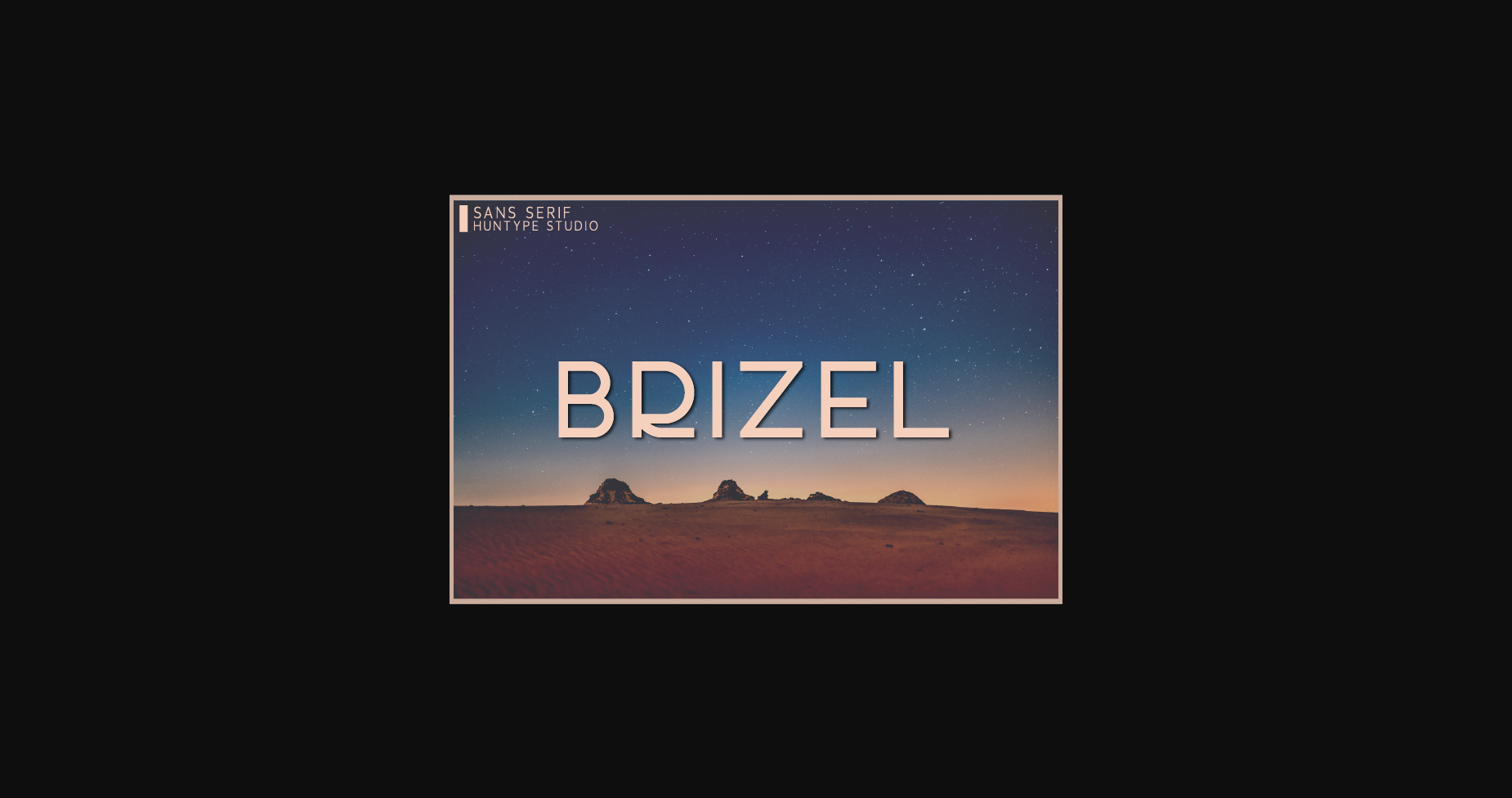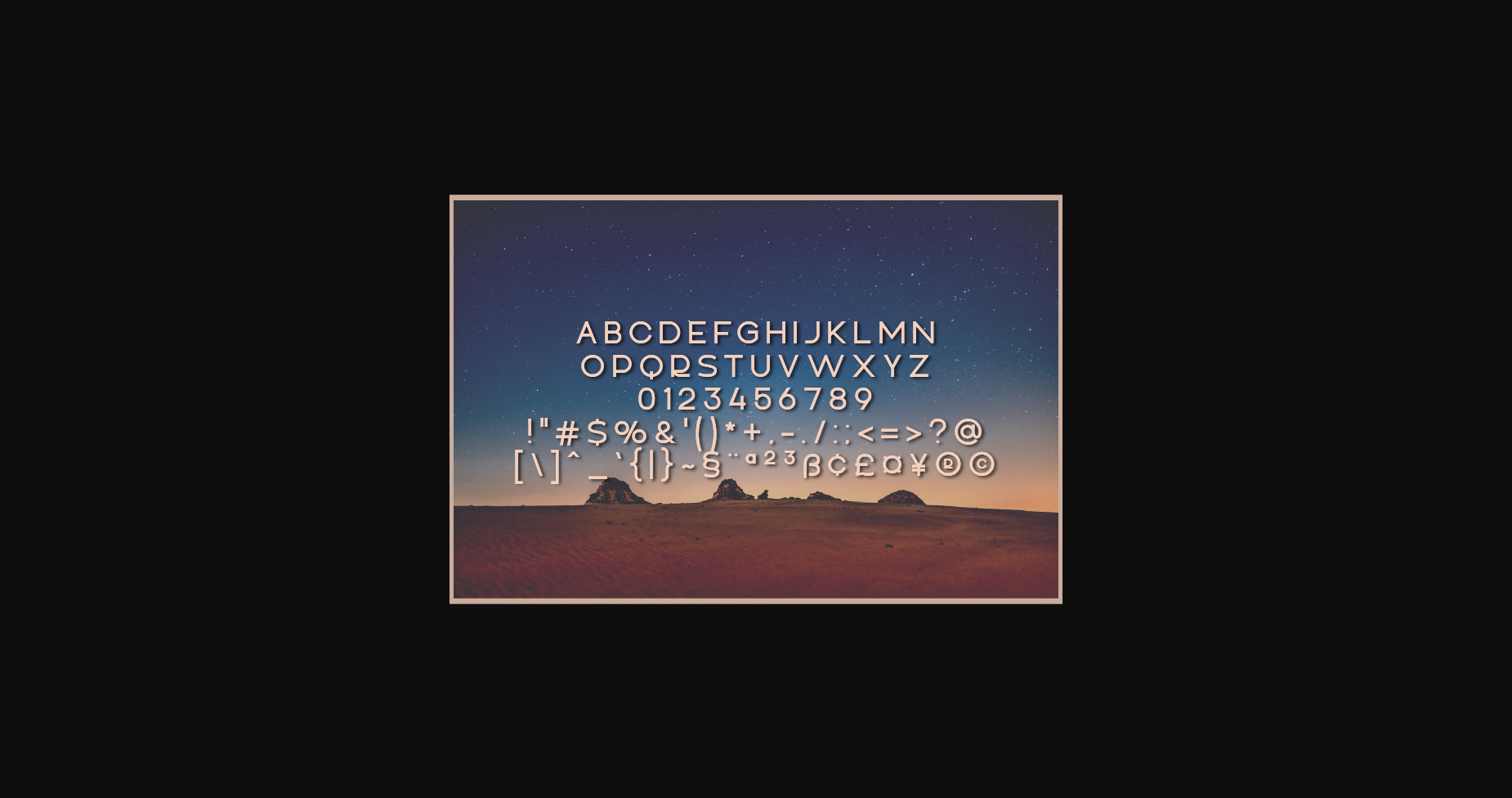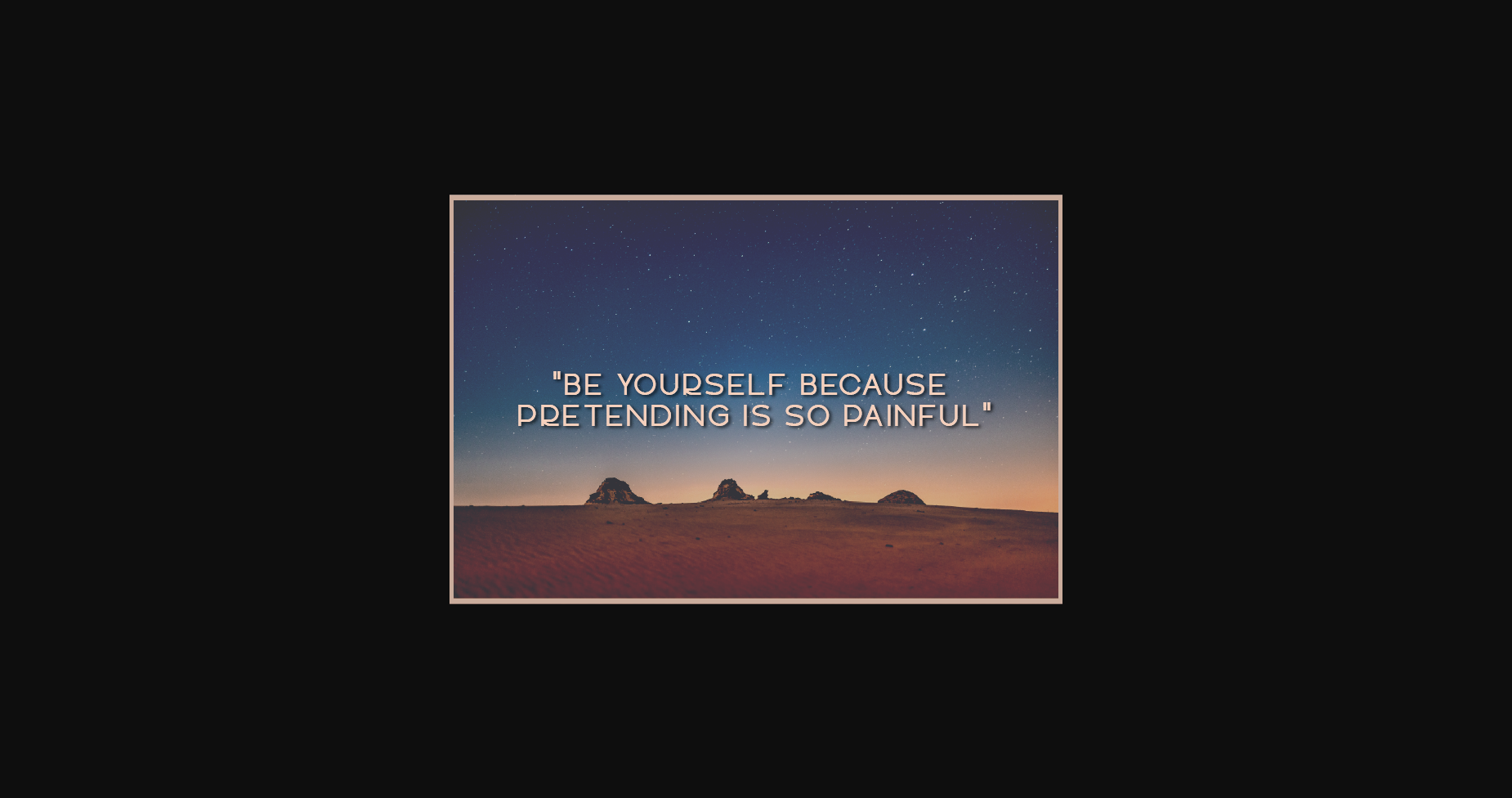
HomeSans Serif FontsBrizel Font Sans Serif Fonts Brizel Font FacebookXPinterestWhatsApp 1 of 5 ... Brizel Font Poster 2... Brizel Font Poster 3... Brizel Font Poster 4... Brizel Font Poster 5... About Brizel Font Brizel is a clean and simple lettered sans serif font. No matter the topic, this font will be an incredible asset to your fonts’ library, as it has the potential to elevate any creation. DOWNLOAD NOW People also explored Journey of Night Font Garcia Font Burique Font Handroberg font Fantasy Font Block Party Sunshine Delivery Parasite Font Ravellin Font 338 0 TagsBrizelBrizel Font Previous articleValentine FontNext articleRoseberry Font LEAVE A REPLY Cancel reply Comment: Please enter your comment! Name:* Please enter your name here Email:* You have entered an incorrect email address! Please enter your email address here Website: Save my name, email, and website in this browser for the next time I comment. Personal Use Free Gila Personal Use Free Read more about this font Angelika Playful Personal Use Free Read more about this font Cretino Personal Use Free Read more about this font Austins Personal Use Free Read more about this font BLOG Using Fonts in Digital Marketing: Tips to Strengthen Your Brand Identity In the realm of digital marketing, every visual element plays a crucial role in shaping a brand's identity, and fonts are no exception. The... How to Install and Use Fonts on Windows, macOS, and Web Projects Transform Your Website: Elevate Your Typography with 7 Best Web Font Generators Exploring Font Trends